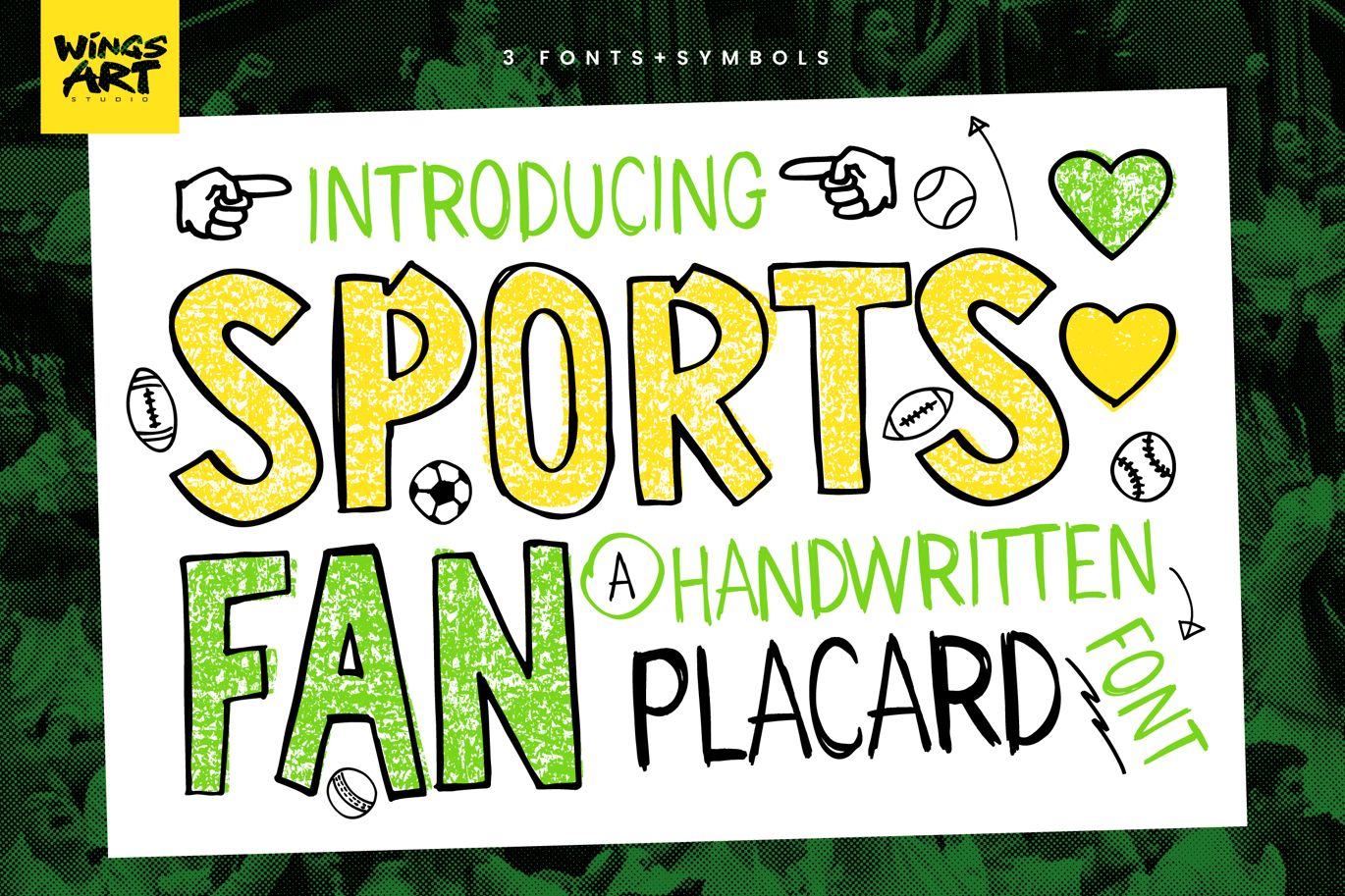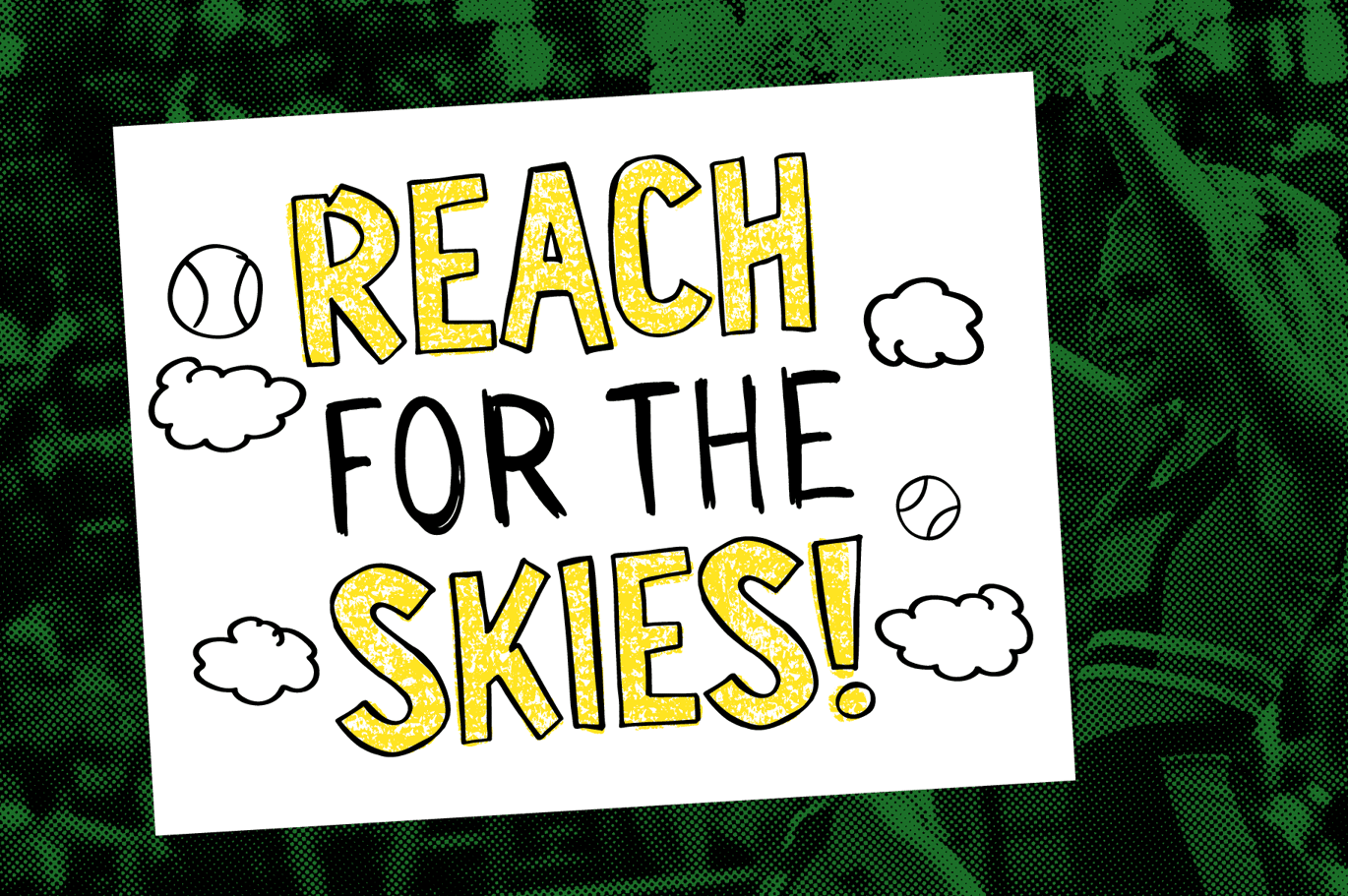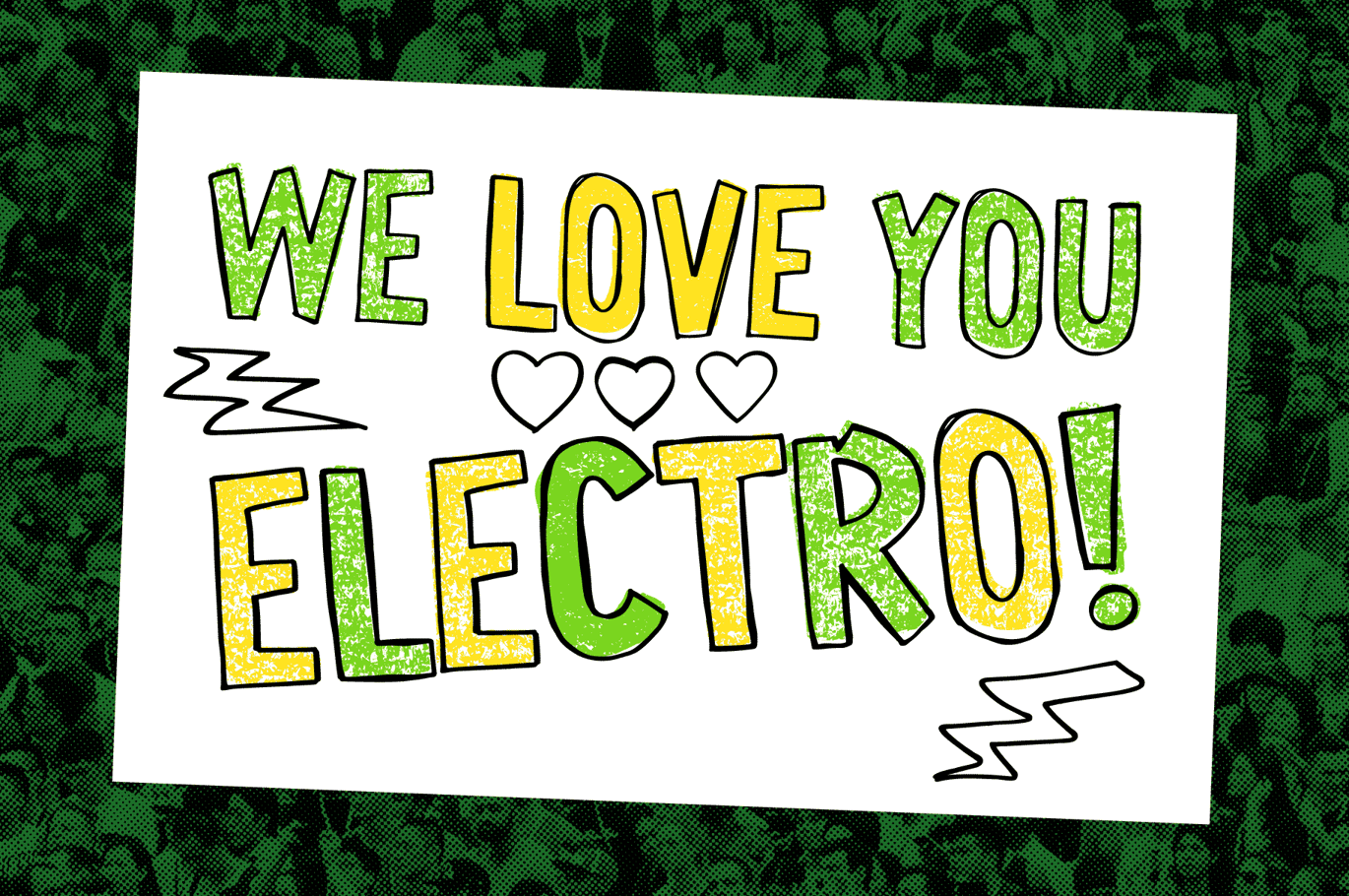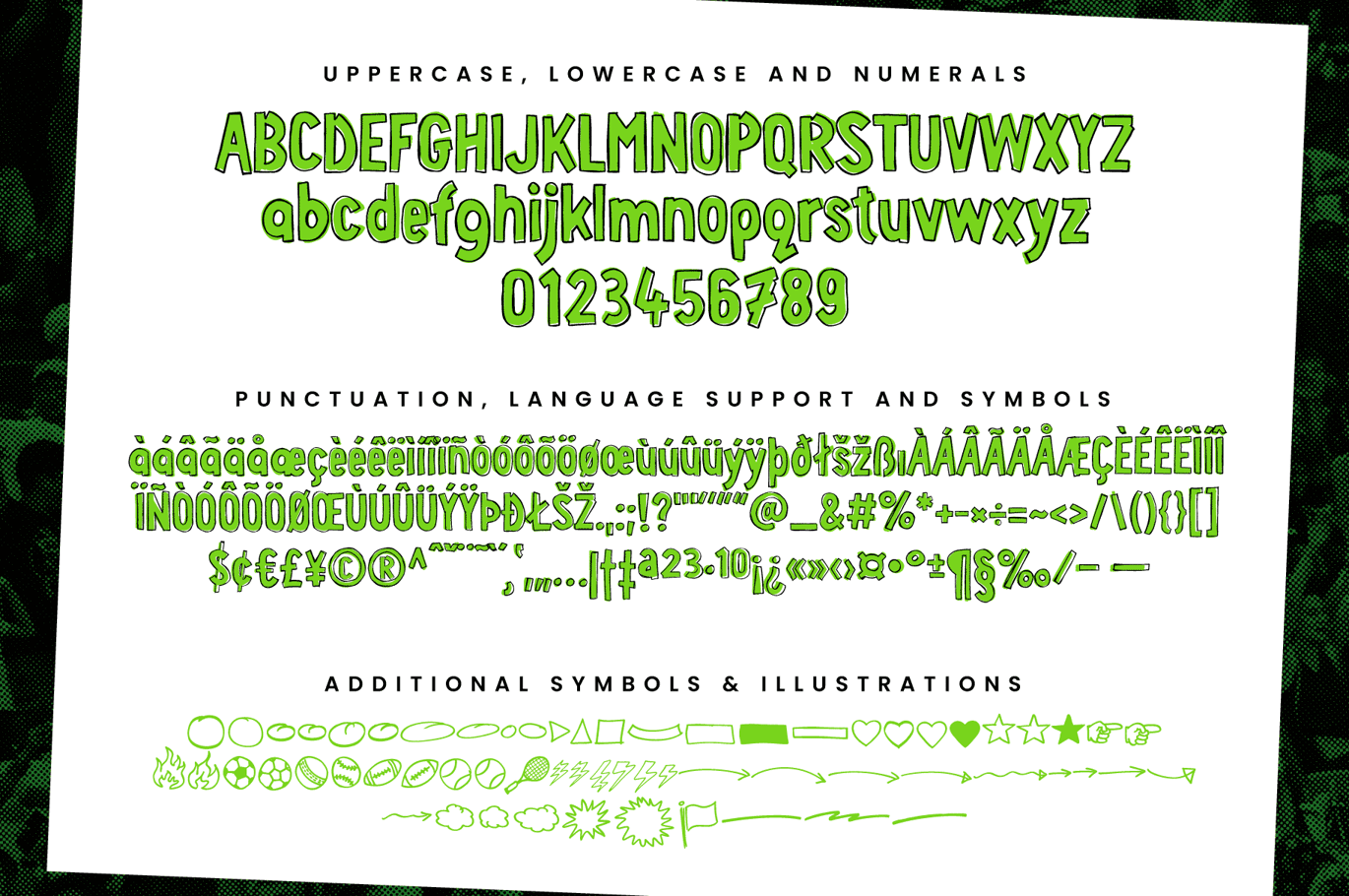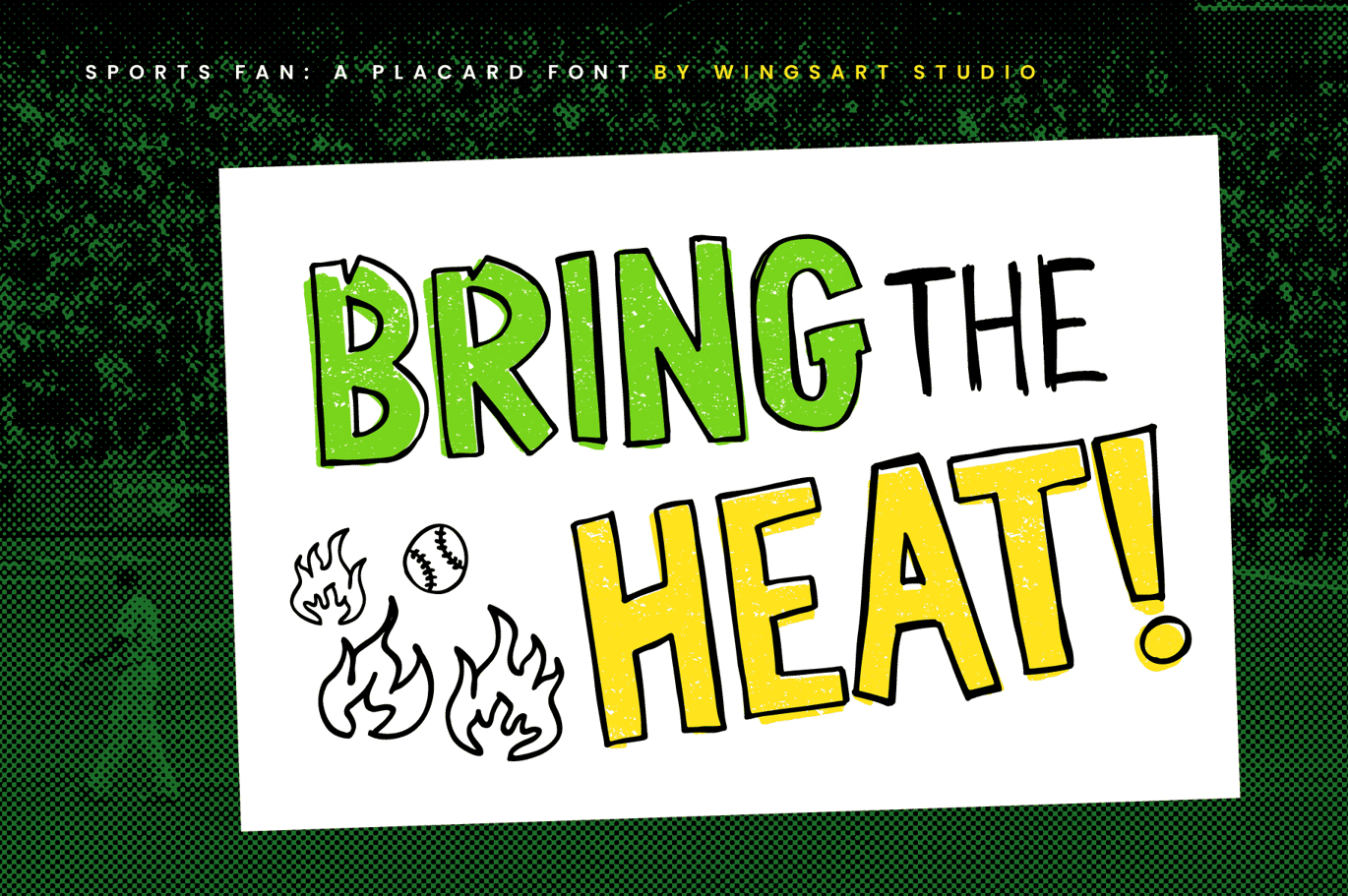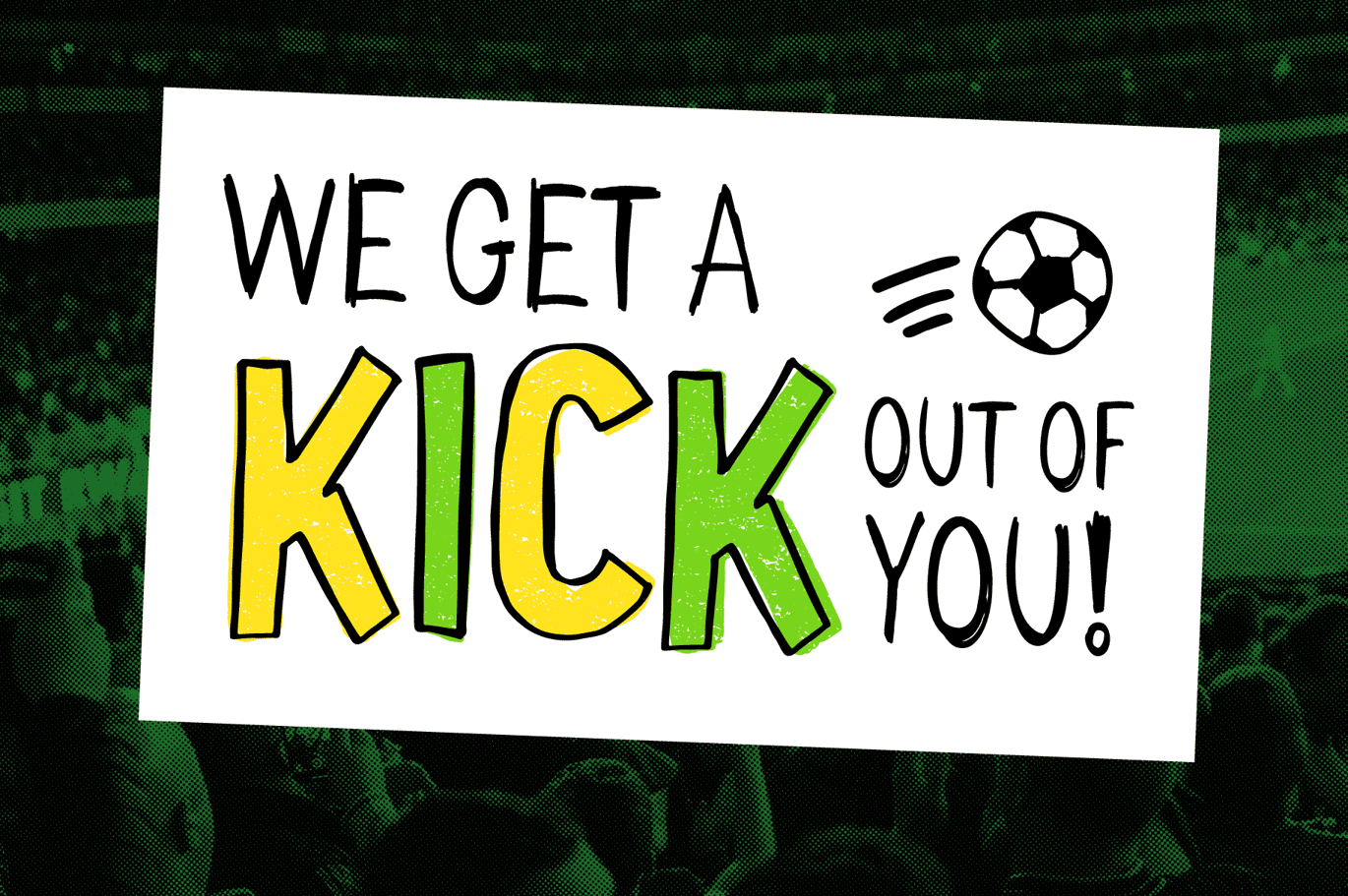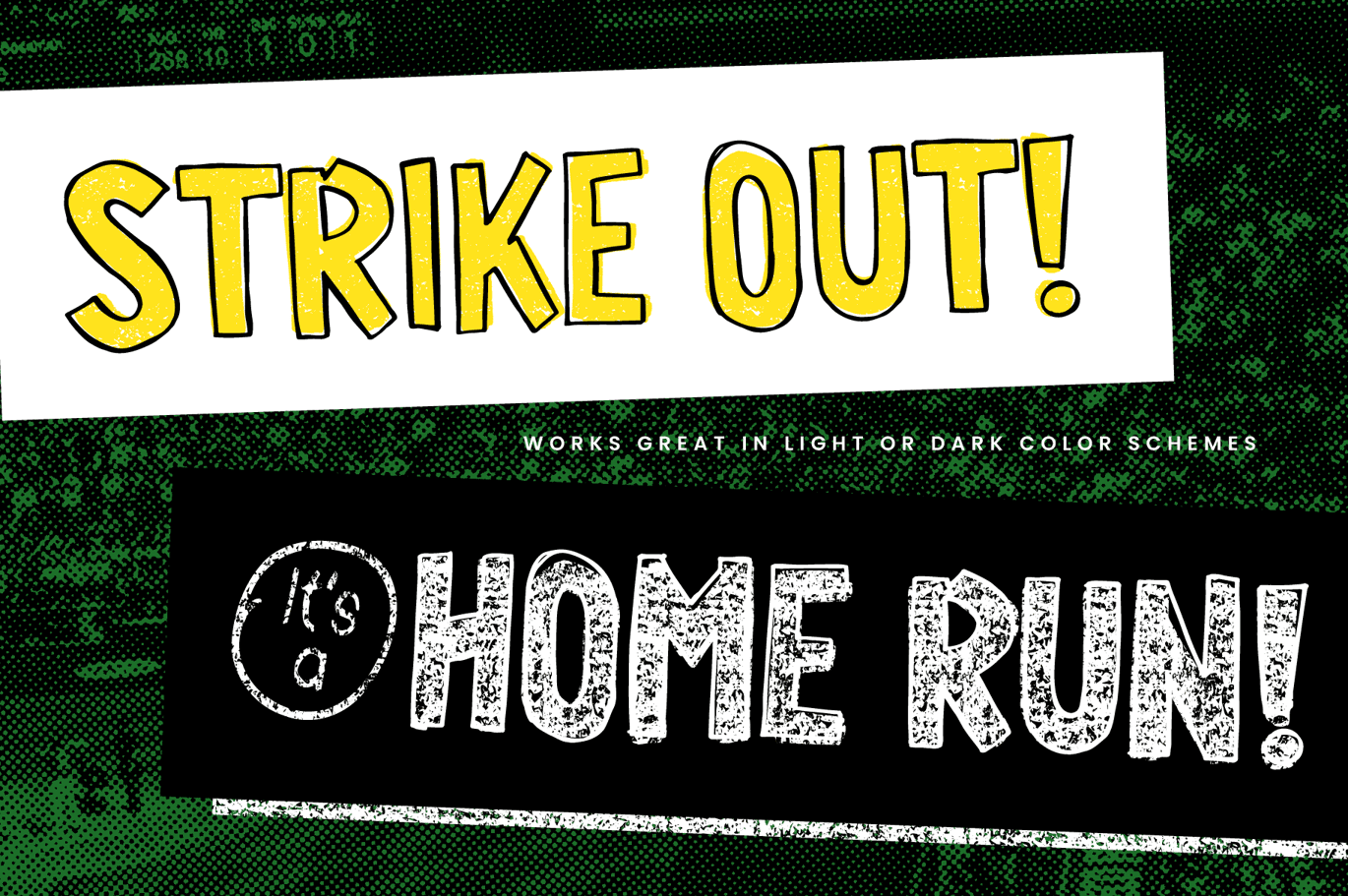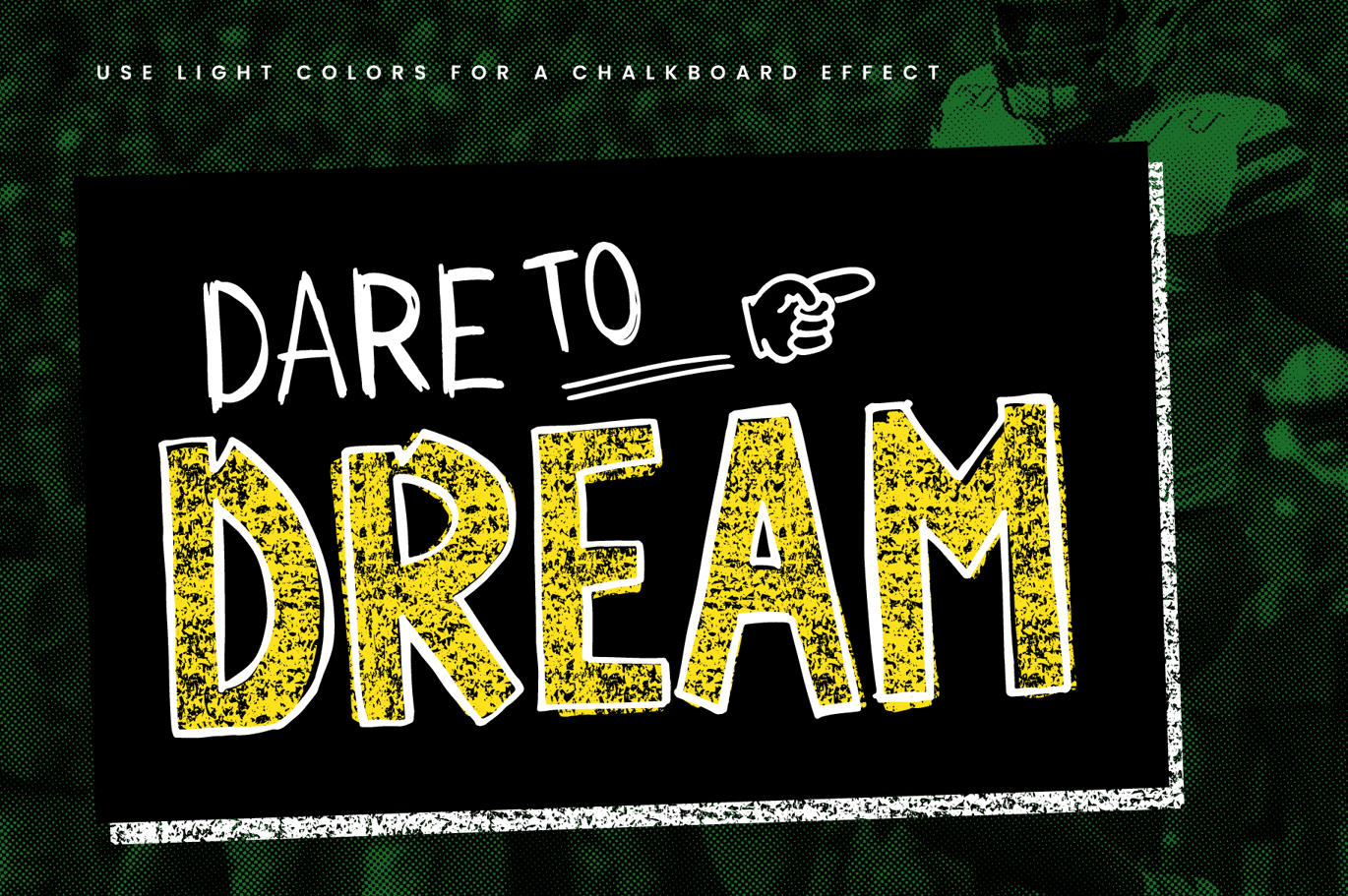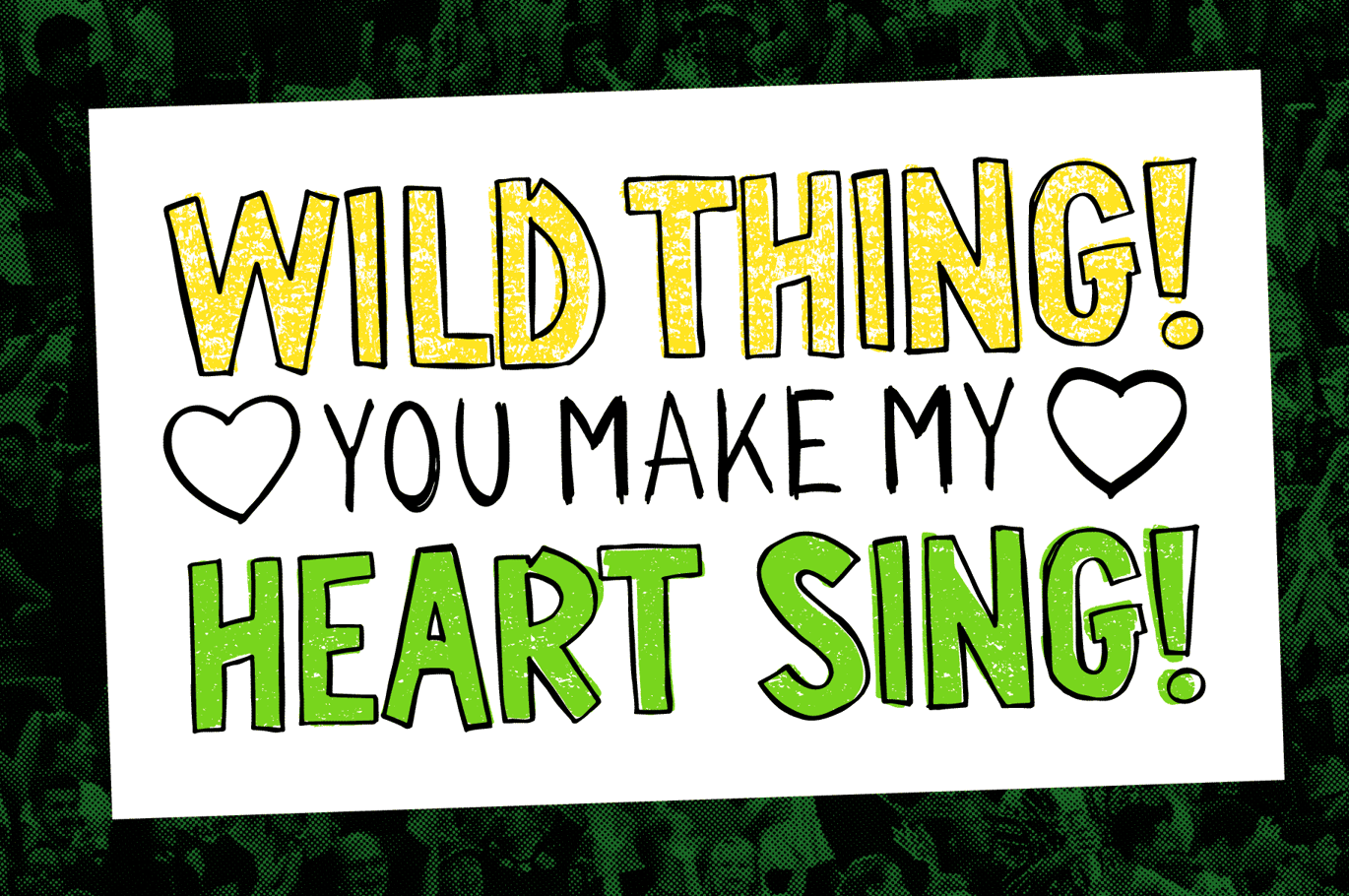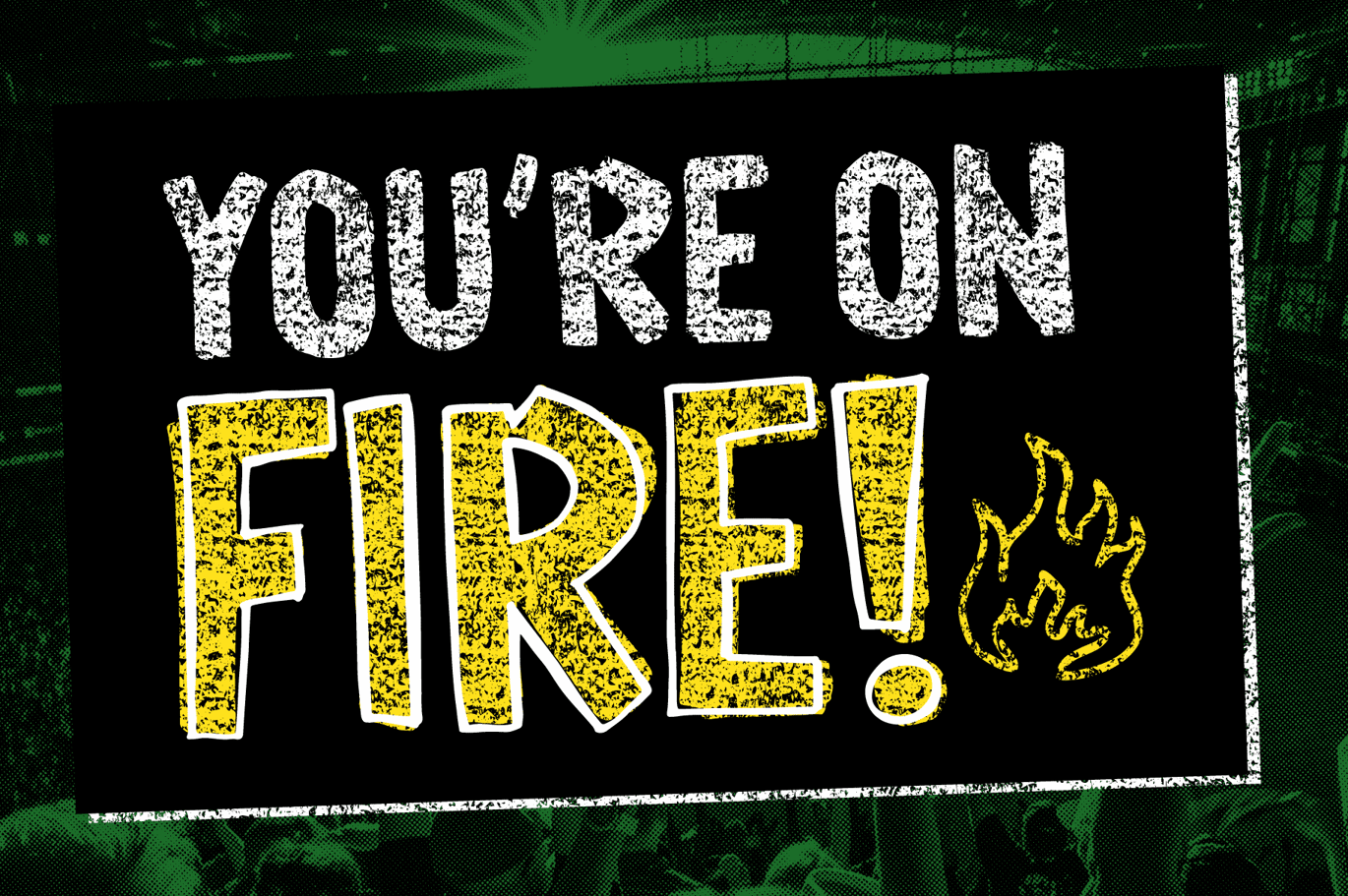
Sports Fan – A Handwritten Placard Font
Get ready for game day with this handwritten font, designed to replicate the look of stadium placards and their motivational messages from enthusiastic fans.
Boasting an almost childlike look while remaining highly legible, the Sports Fan font family includes three styles – starting with the Regular (suitable for any project that requires a formal, but analogue look), the Outline, which adds a loose fitting hand-drawn appearance, and Thin, for secondary text.
I’ve designed it to be a playful font that encourages you to experiment with layering up each style. It works great when you invert the colours too, offering a more chalkboard-like finish. Check out the visuals for my own usage suggestions.
The Sports Fan font family includes a complete set of uppercase and lowercase characters, along with numerals, punctuation, symbols and language support.